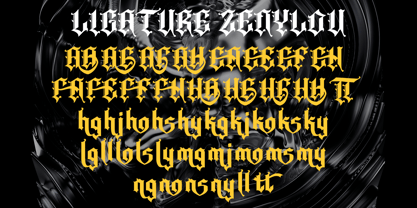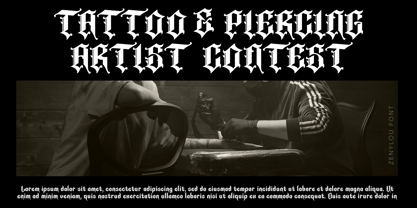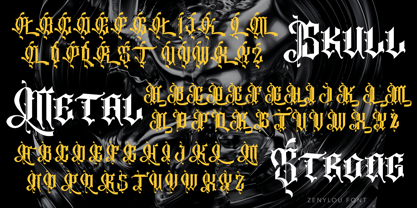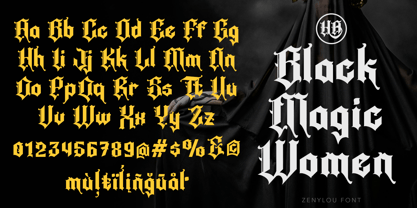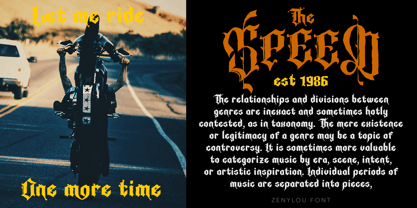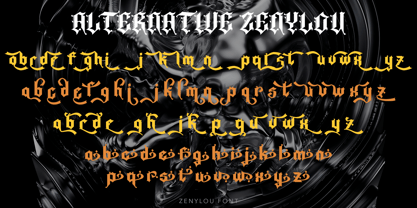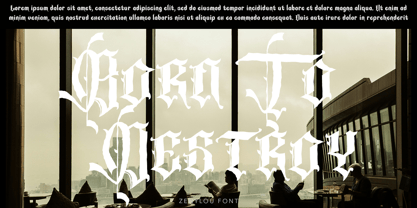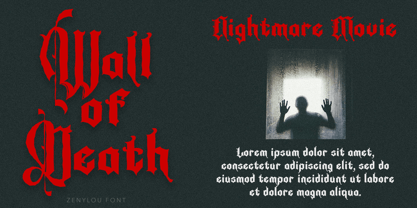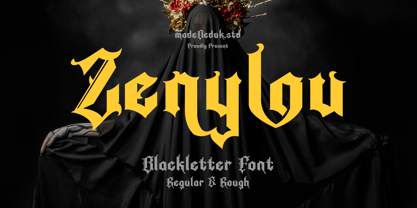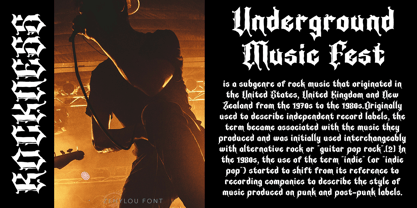
Zenylou Blackletter
The Zenylou Blackletter Font Family was designed by madededuk and published by madeDeduk. Zenylou Blackletter contains 2 styles and family package options. More about this family
Zenylou is a Blackletter font that still has the historical and modern aesthetics are both easily achieved with this personality rich font. As usual this font will be very suitable for brands that need a classic and gothic style, perfect for Branding, Logos, Greeting Cards, Stationery Design, Invitations, T-shirts, Apparel, Packaging designs, Posters, Typographic Design, and so much more.